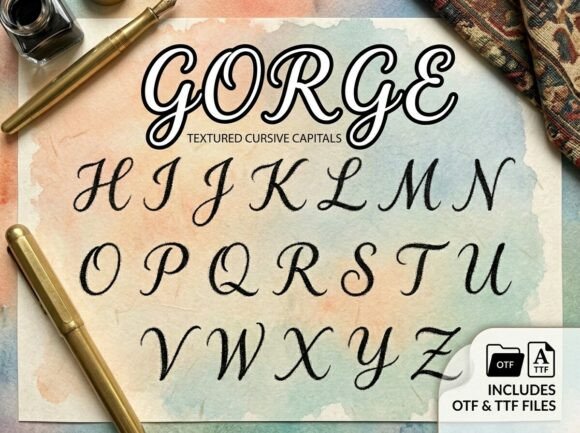
Gorge Font: Elevate Your Designs with a Stunning Decorative Display Font
Are you tired of using the same old fonts in your designs? Do you want to make a statement and grab the attention of your audience? Look no further than the Gorge Font, a unique and artistic display font that’s perfect for creators who want to break away from the ordinary.
What is Gorge Font?
Gorge Font is a decorative display font designed to be the center of attention. With its strong visual personality and unique artistic elements, this font is sure to elevate your designs and make them stand out from the crowd. Whether you’re a graphic designer, a crafty DIY enthusiast, or a marketing professional, Gorge Font is the perfect choice for anyone looking to add a touch of elegance and sophistication to their work.
Key Features of Gorge Font
- Unique Artistic Elements: Gorge Font features unique artistic elements that set it apart from other fonts. Each letter is carefully crafted to make a statement and add a touch of personality to your designs.
- Strong Visual Personality: This font has a strong visual personality that’s sure to grab attention. Whether you’re using it for a headline, logo, or packaging, Gorge Font is sure to make an impact.
- Versatile: Despite its decorative nature, Gorge Font is versatile enough to be used for a variety of design projects. From bold headlines and artistic logos to creative packaging, this font can be used in a multitude of ways.
- Professional and Polished Finish: Despite its bold and artistic nature, Gorge Font maintains a professional and polished finish that’s perfect for high-end designs.
IMPORTANT NOTE BEFORE PURCHASE: Gorge Font is an ALL-CAPS (Uppercase Only) display typeface. This means that it does not include lowercase letters. It’s specifically designed for high-impact headlines, logos, and decorative initials where every letter is a work of art.
Why Choose Gorge Font?
- Stand Out from the Crowd: With its unique artistic elements and strong visual personality, Gorge Font is sure to make your designs stand out from the crowd.
- Perfect for Creative Projects: Whether you’re working on a graphic design project, a crafty DIY project, or a marketing campaign, Gorge Font is the perfect choice.
- Easily Readable: Despite its decorative nature, Gorge Font is easily readable, making it perfect for headlines, logos, and other design elements.
- Professional Quality: With its professional and polished finish, Gorge Font is perfect for high-end designs and projects that require a touch of elegance and sophistication.
How to Use Gorge Font
- Headlines: Use Gorge Font to create bold and eye-catching headlines that grab attention.
- Logos: Create a stunning logo for your business or brand with Gorge Font.
- Packaging: Add a touch of elegance and sophistication to your packaging with Gorge Font.
- Social Media Graphics: Use Gorge Font to create stunning social media graphics that stand out from the crowd.
In conclusion, Gorge Font is a stunning decorative display font that’s perfect for creators who want to break away from the ordinary. With its unique artistic elements, strong visual personality, and versatile design, this font is sure to elevate your designs and make them stand out from the crowd. Whether you’re a graphic designer, a crafty DIY enthusiast, or a marketing professional, Gorge Font is the perfect choice for anyone looking to add a touch of elegance and sophistication to their work.